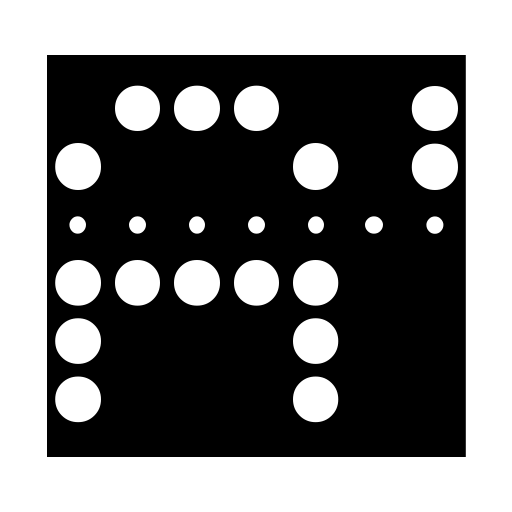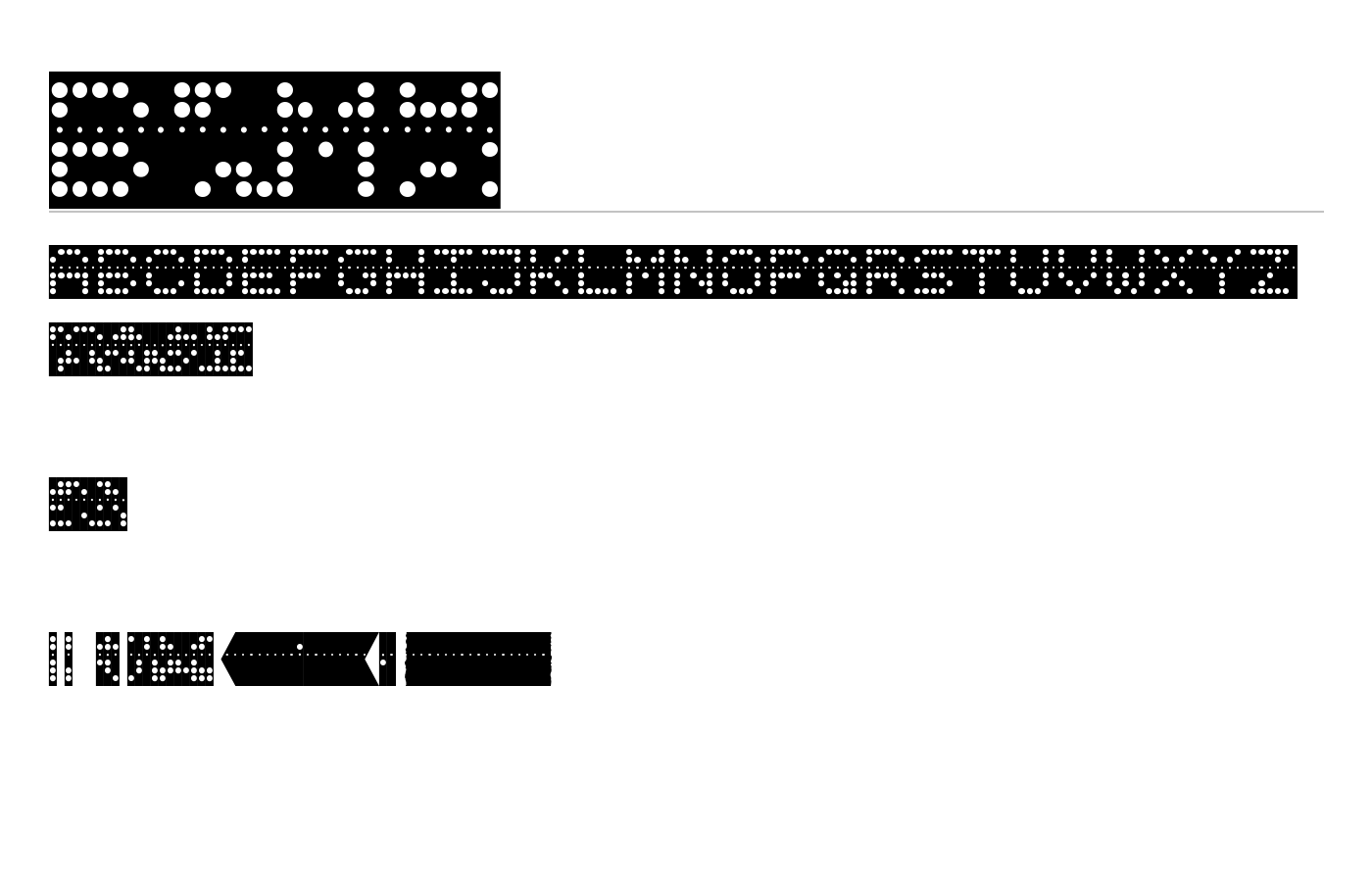
BaudotMurray is a unique, display sans serif font that uses a dot matrix style, giving it a digital, tech-inspired appearance. Its consistent geometric dots form clear, uppercase characters with a modern and futuristic feel, perfect for technology branding, digital interfaces, or creative projects that aim to evoke innovation and precision. This font works best in headlines or logo designs where its distinctive pixelated style can truly stand out.
BaudotMurray Font
About BaudotMurray Font
| Font family | BaudotMurray Font |
| Designer | Peter Wiegel after Baudot Murray-Code CCITT-2 |